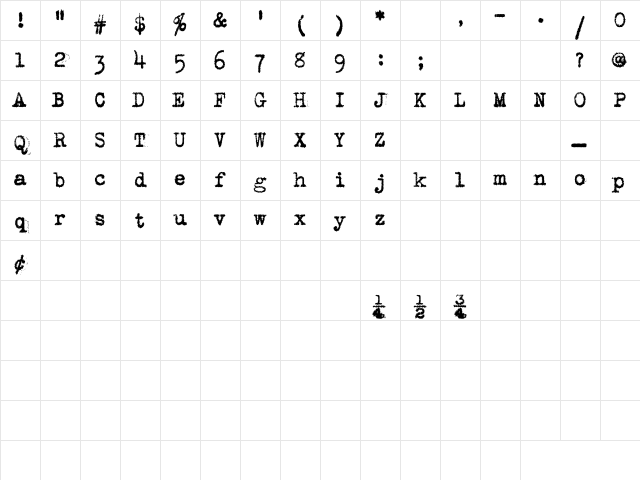
VintageTypewriter SmithUpright Free Font
VintageTypewriter SmithUpright
Style: SmithUpright
VintageTypewriter Family
Complete VintageTypewriter SmithUpright glyph index. Displaying only characters natively supported by VintageTypewriter SmithUpright font.
Design Context for VintageTypewriter
VintageTypewriter wears its vintage influences proudly, with letterforms that recall mid-century signage, classic packaging, and nostalgia-driven design.